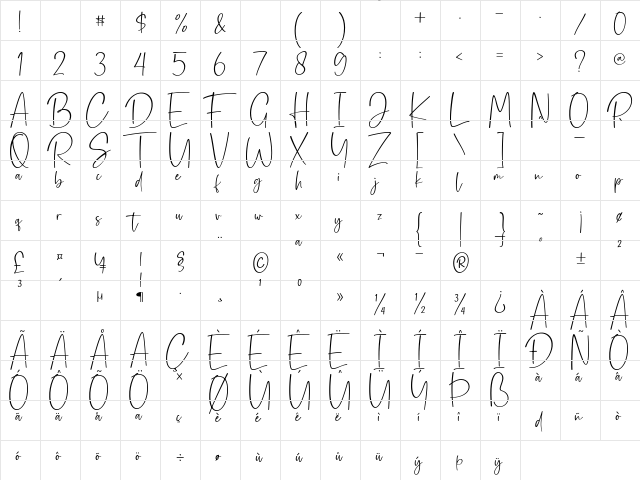
Pleasent Regular Font Preview
Pleasent Regular
Design Context for Pleasent Typeface
Pleasent is a composed and adaptable typeface that performs quietly and consistently across a wide range of design contexts.